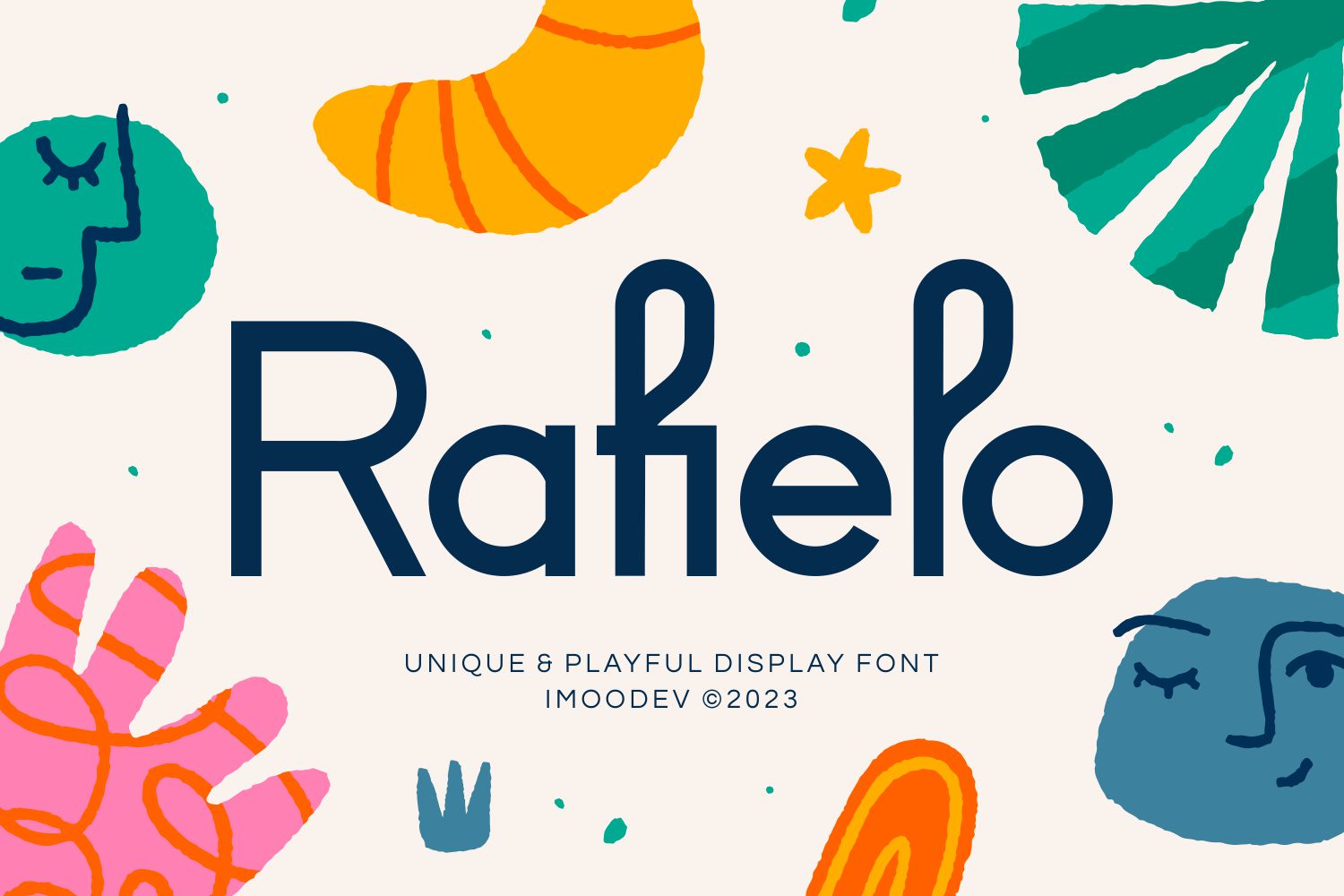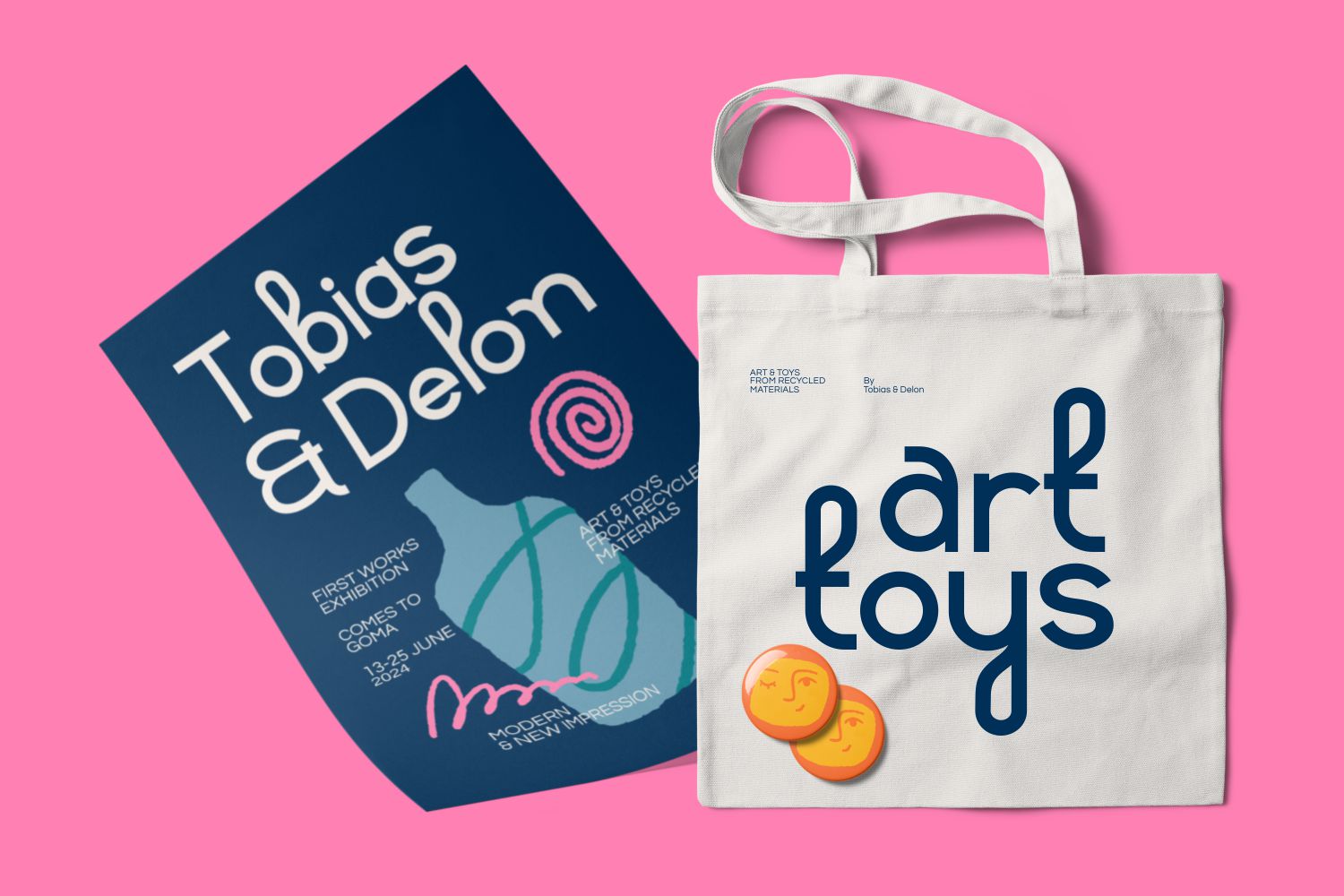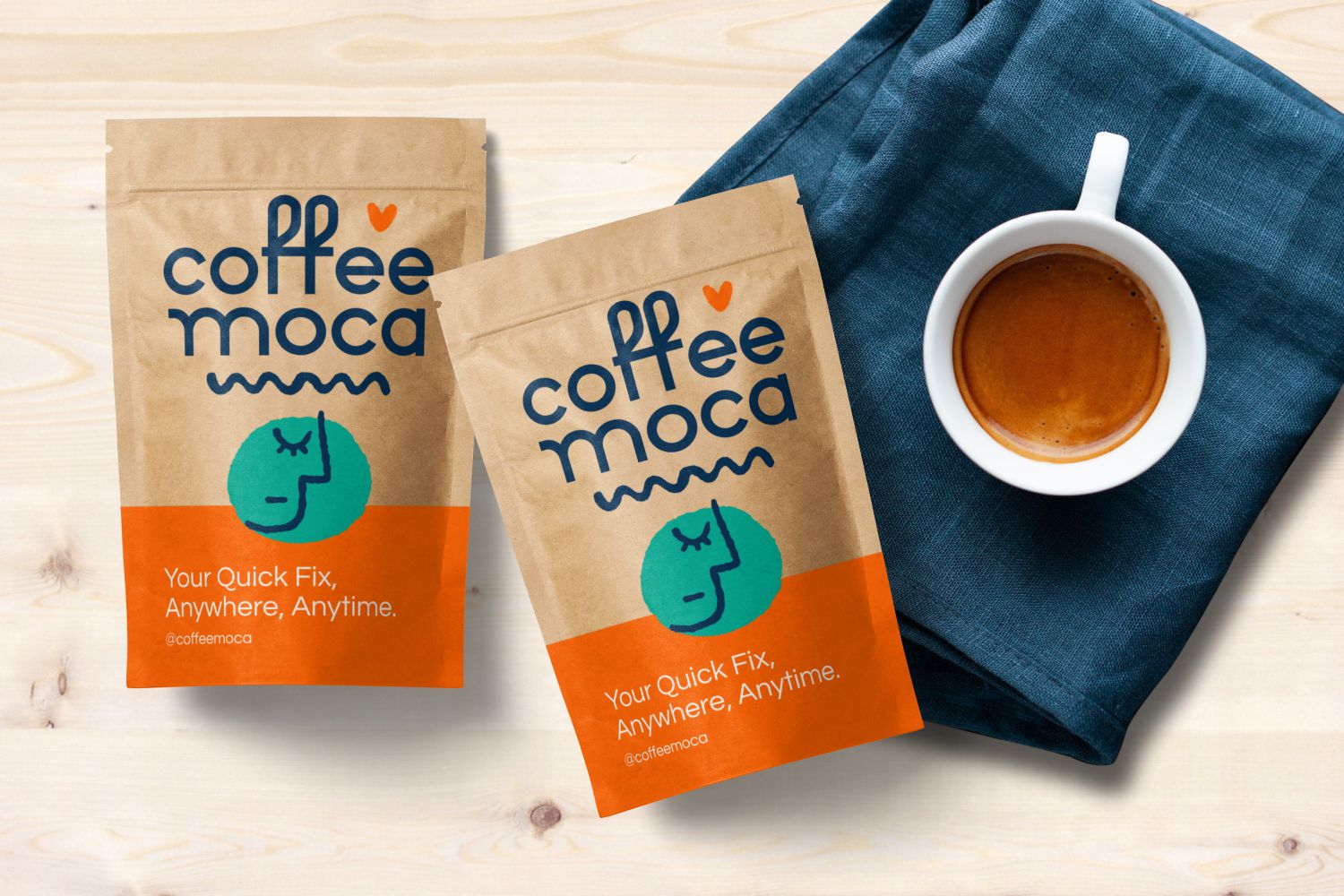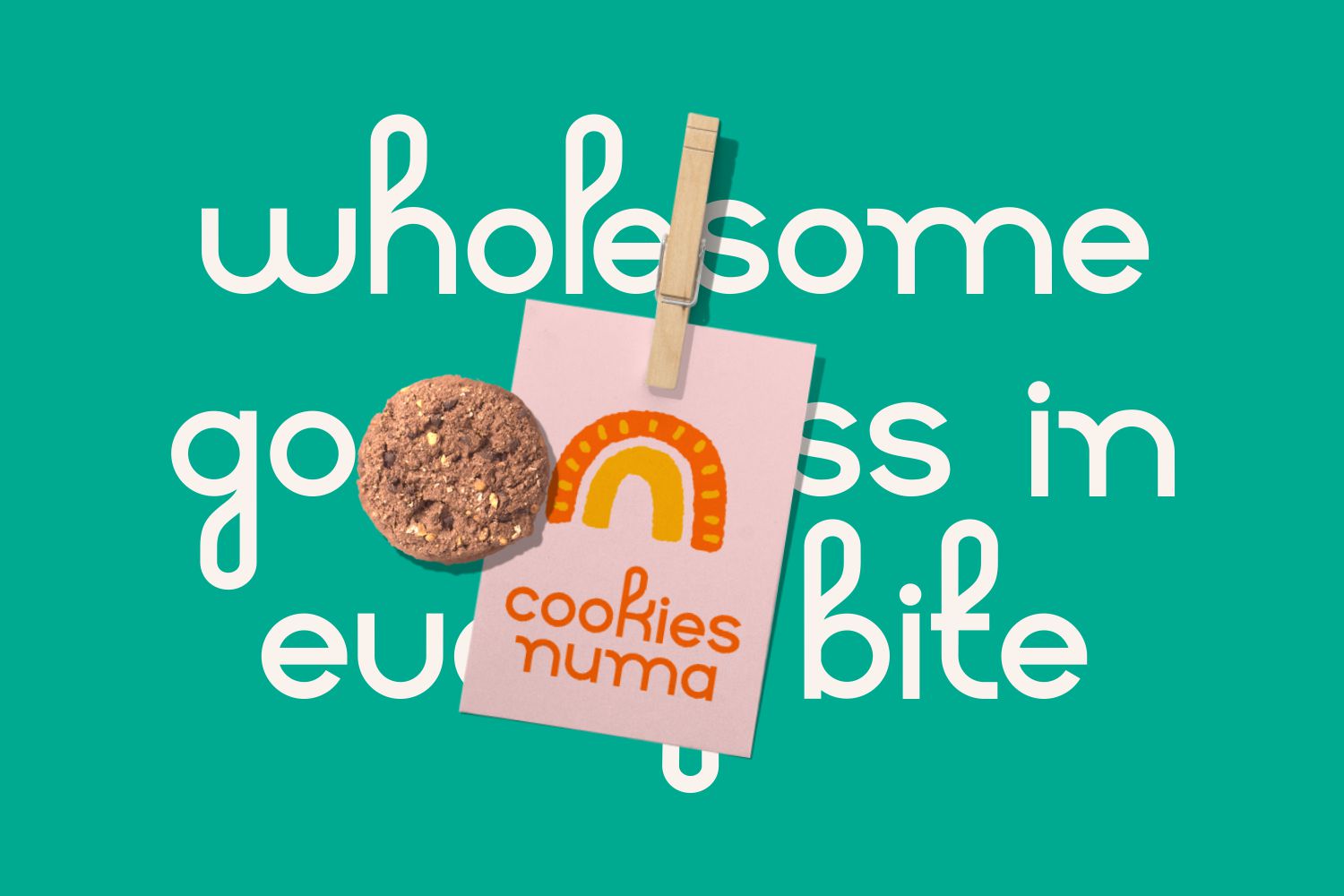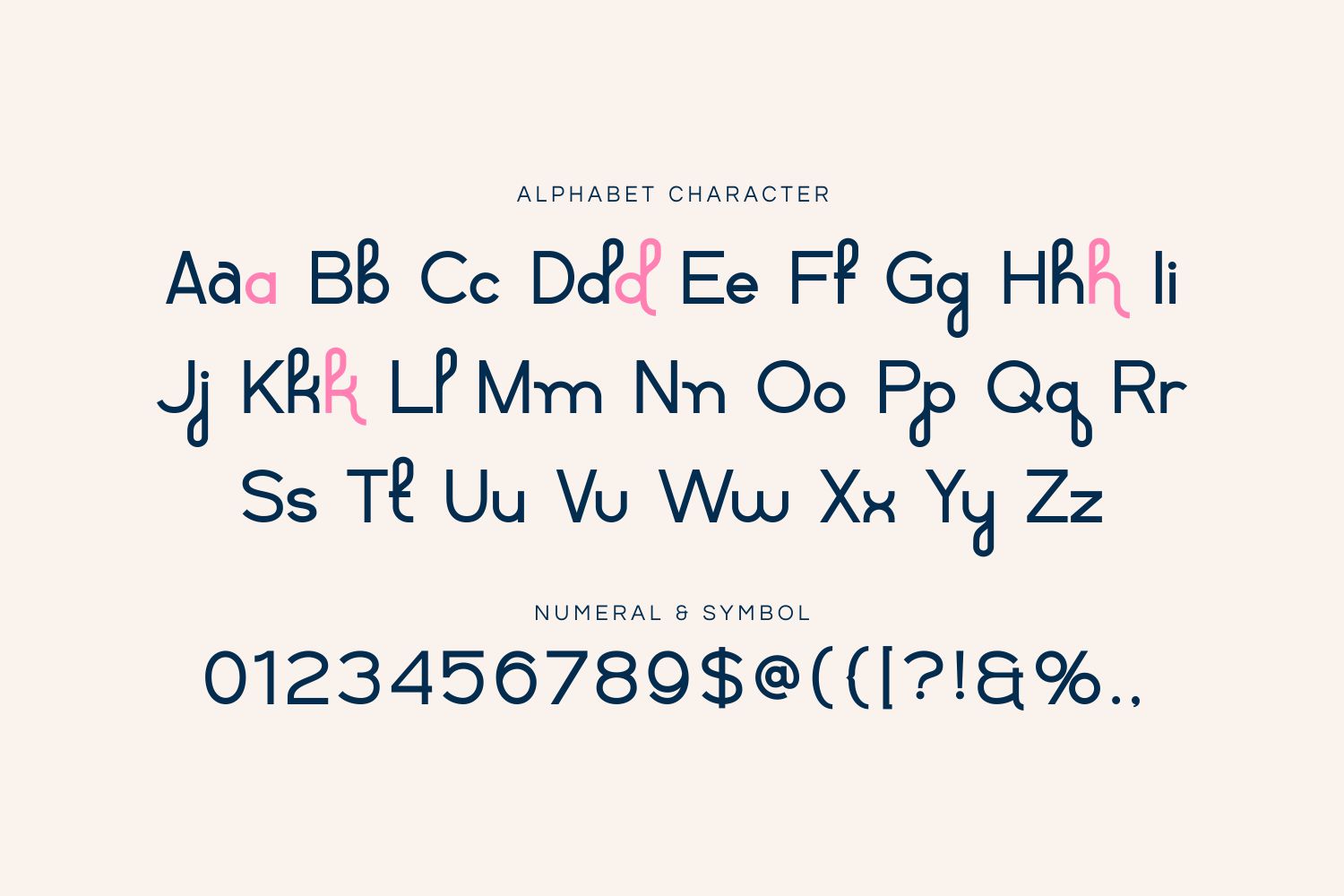
Rafielo is a unique and playful display font that blends geometric precision with whimsical charm. Its clean lines are balanced with distinctive looped strokes on select letters, giving it a friendly yet modern personality. Perfect for branding projects, packaging, posters, and creative merchandise, Rafelo adds a touch of fun without losing readability, making it versatile for both digital and print designs.
With its stylish alternates and bold character, Rafielo shines in artistic compositions, kids’ products, café branding, and contemporary lifestyle campaigns. The font’s joyful curves and balanced structure make it ideal for projects that want to communicate creativity, warmth, and approachability while maintaining a polished and professional look.